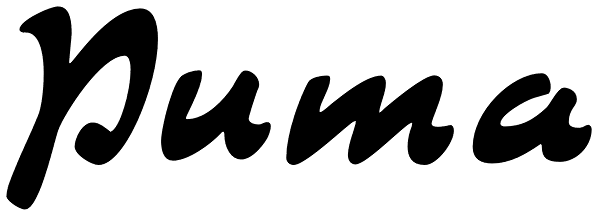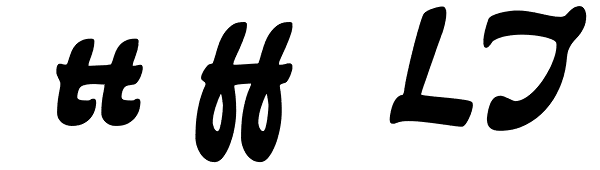
Puma
Based on Herbert Thannhaeuser's 1954 Kurier design, Puma is the digital version of what is possibly the friendliest yet least used heavy brush design. Aside from its utilitarian functionality as a poster and sign font, Puma includes some original...
Puma
Puma Alt